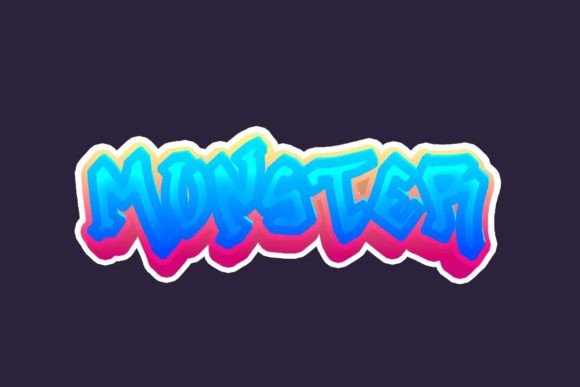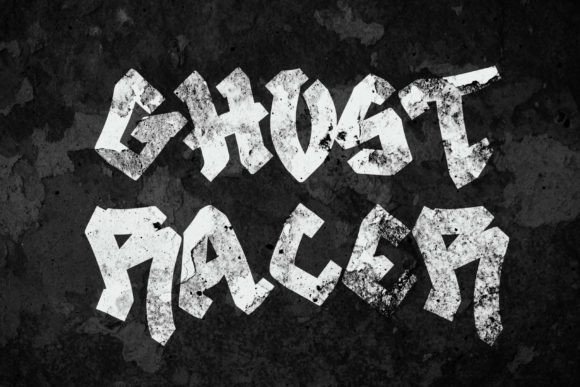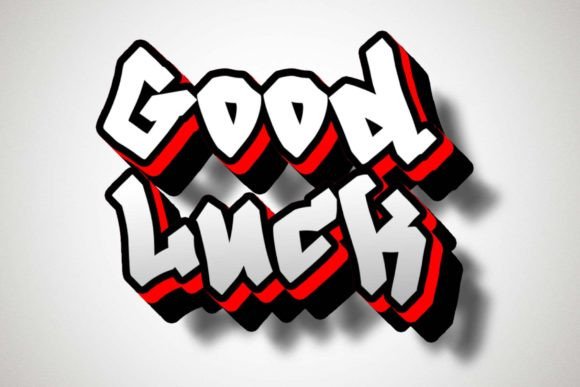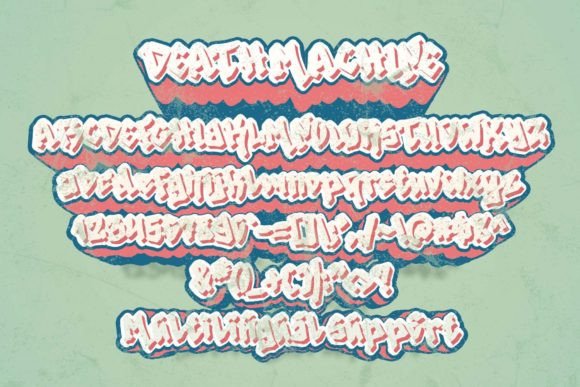
Unleash Your Creativity with Death Machine Font: The Ultimate Graffiti Font
Are you a designer, artist, or crafter looking for a unique and elegant font to elevate your creative projects? Look no further than the Death Machine Font, a stunning graffiti font that is perfect for a wide range of applications. In this article, we’ll dive into the features and benefits of this incredible font, and explore how it can be used to take your designs to the next level.
What is Death Machine Font?
“Death Machine” is an elegant graffiti font that is designed to make a statement. With its bold, edgy lines and fluid curves, this font is perfect for creating eye-catching designs that demand attention. Whether you’re looking to create stickers, posters, tattoos, banners, or branding materials, Death Machine Font is the perfect choice.
Key Features of Death Machine Font
- Elegant Graffiti Style: Death Machine Font boasts an elegant graffiti style that is both modern and sophisticated.
- High Versatility: This font is incredibly versatile, making it suitable for a wide range of applications, from stickers and posters to tattoos and branding materials.
- Easy to Read: Despite its bold and edgy design, Death Machine Font is surprisingly easy to read, making it perfect for use in a variety of contexts.
- Scalable: This font is highly scalable, meaning it can be used in a variety of sizes without losing its clarity or impact.
Uses of Death Machine Font
Death Machine Font is an incredibly versatile font that can be used in a wide range of applications, including:
- Stickers: Create eye-catching stickers that demand attention with Death Machine Font.
- Posters: Design stunning posters that showcase your message in a bold and elegant way.
- Tattoos: Use Death Machine Font to create unique and personalized tattoo designs.
- Banners: Create bold and eye-catching banners that make a statement.
- Branding: Use Death Machine Font to create a unique and memorable brand identity.
- Social Media: Elevate your social media presence with Death Machine Font, perfect for creating engaging graphics and posts.
Why Choose Death Machine Font?
So why choose Death Machine Font over other fonts? Here are just a few reasons:
- Unique Style: Death Machine Font boasts a unique and elegant graffiti style that sets it apart from other fonts.
- High Quality: This font is designed to be high-quality and highly readable, making it perfect for use in a variety of contexts.
- Easy to Use: Death Machine Font is incredibly easy to use, making it perfect for designers and crafters of all skill levels.
Tips and Tricks for Using Death Machine Font
Here are a few tips and tricks for getting the most out of Death Machine Font:
- Experiment with Colors: Death Machine Font looks great in a variety of colors, so don’t be afraid to experiment and find the perfect hue for your design.
- Play with Size: This font is highly scalable, so try using it in different sizes to create visual interest and hierarchy.
- Combine with Other Fonts: Death Machine Font pairs well with a variety of other fonts, so try combining it with other fonts to create a unique and interesting design.
In conclusion, Death Machine Font is an incredible graffiti font that is perfect for designers, artists, and crafters looking to elevate their creative projects. With its elegant style, high versatility, and ease of use, this font is sure to become a staple in your design toolkit. So why wait? Download Death Machine Font today and start creating stunning designs that demand attention!